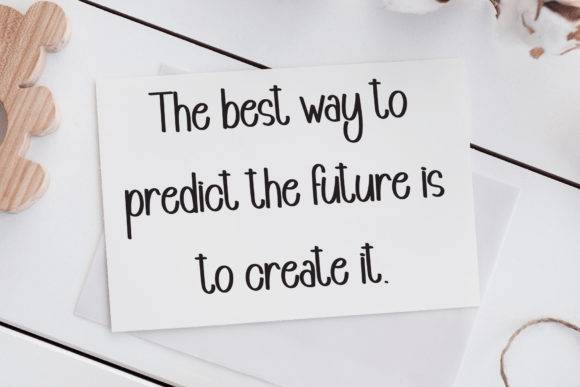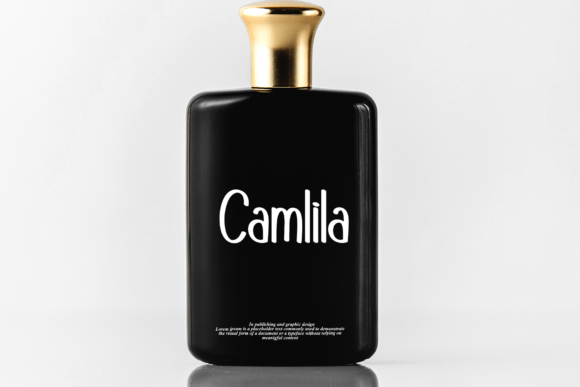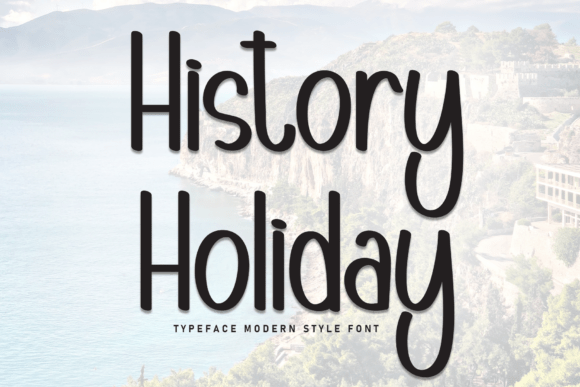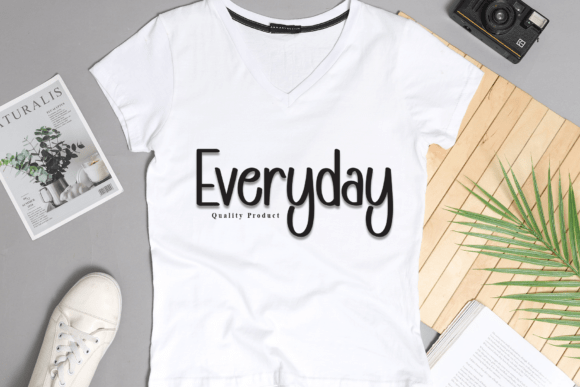
History Holiday Font: A Neat Display Font for Social Media Design
About the History Holiday Font
Unleash your creativity with History Holiday Font, a versatile font perfect for a wide range of applications. History Holiday is a casual and neat display font that radiates a fresh, friendly vibe. With clean lines and a relaxed structure, it’s perfect for packaging, posters, and social media graphics. The approachable design adds charm and clarity to projects while maintaining a polished appearance.
History Holiday’s friendly, casual style makes it ideal for projects needing a touch of approachable charm. It excels in headlines, short text blocks on posters or packaging, and social media posts where readability and visual appeal are key. However, its relaxed structure isn’t suited to body copy or UI elements requiring high legibility in long-form text.
The font’s overall personality is cheerful and approachable, making it well-suited for brands targeting a youthful, optimistic audience, or projects focusing on themes of celebration, family, and community.